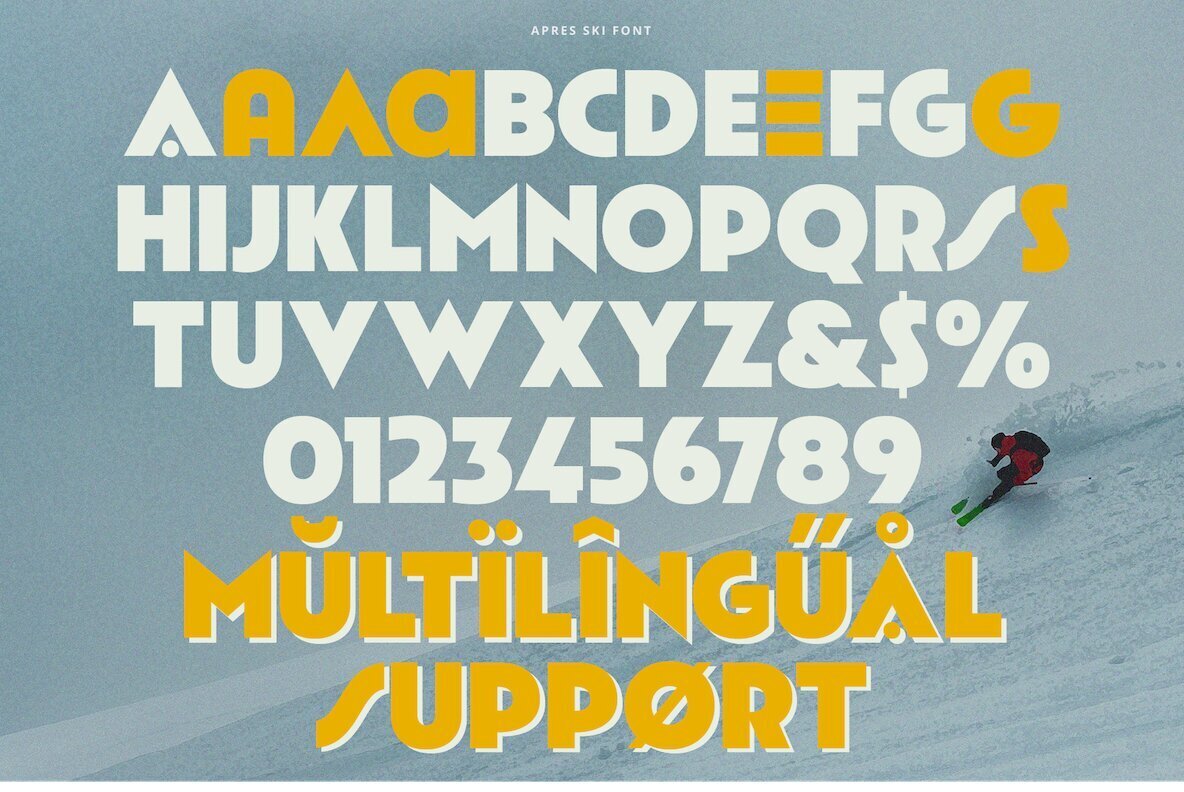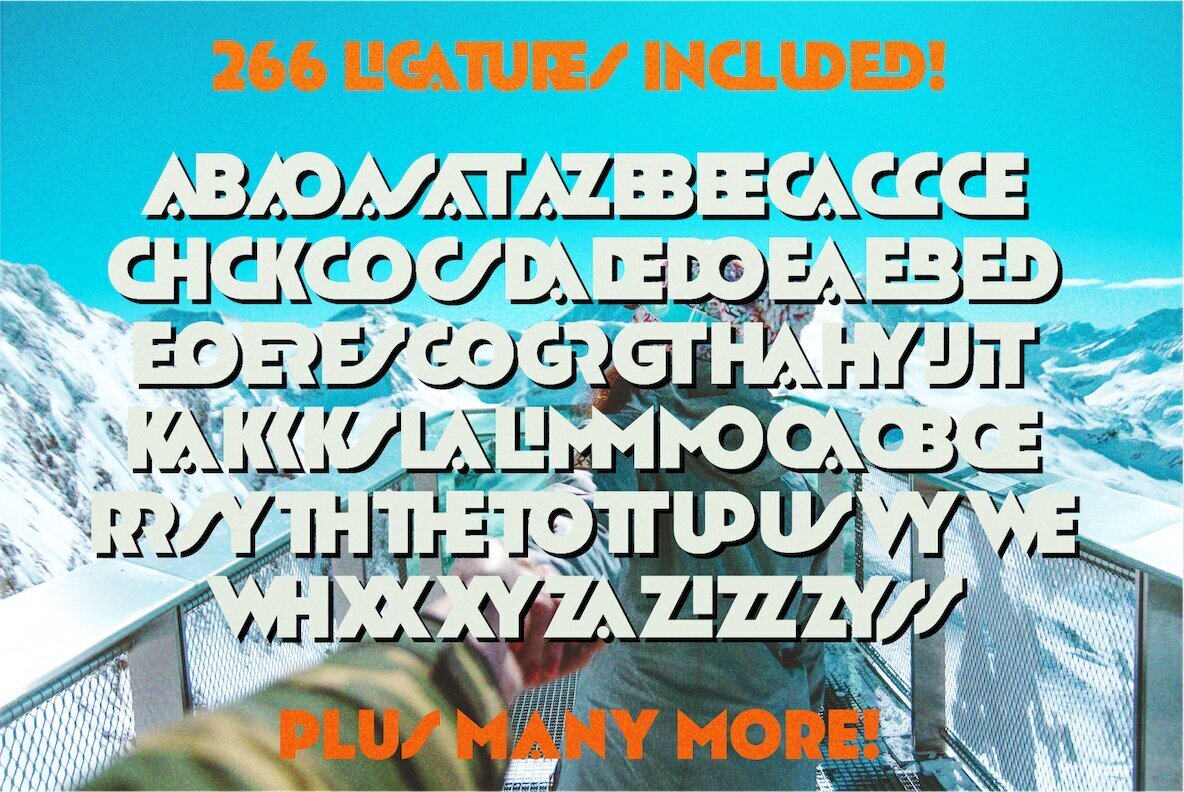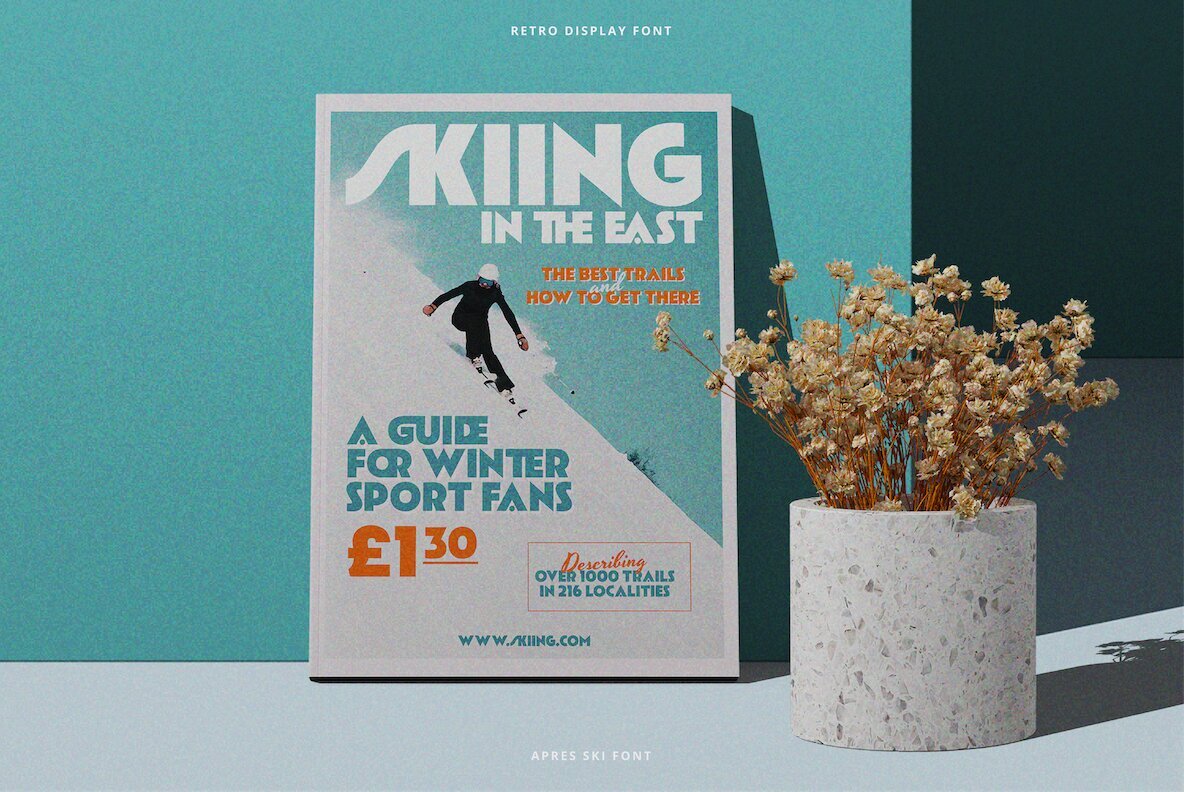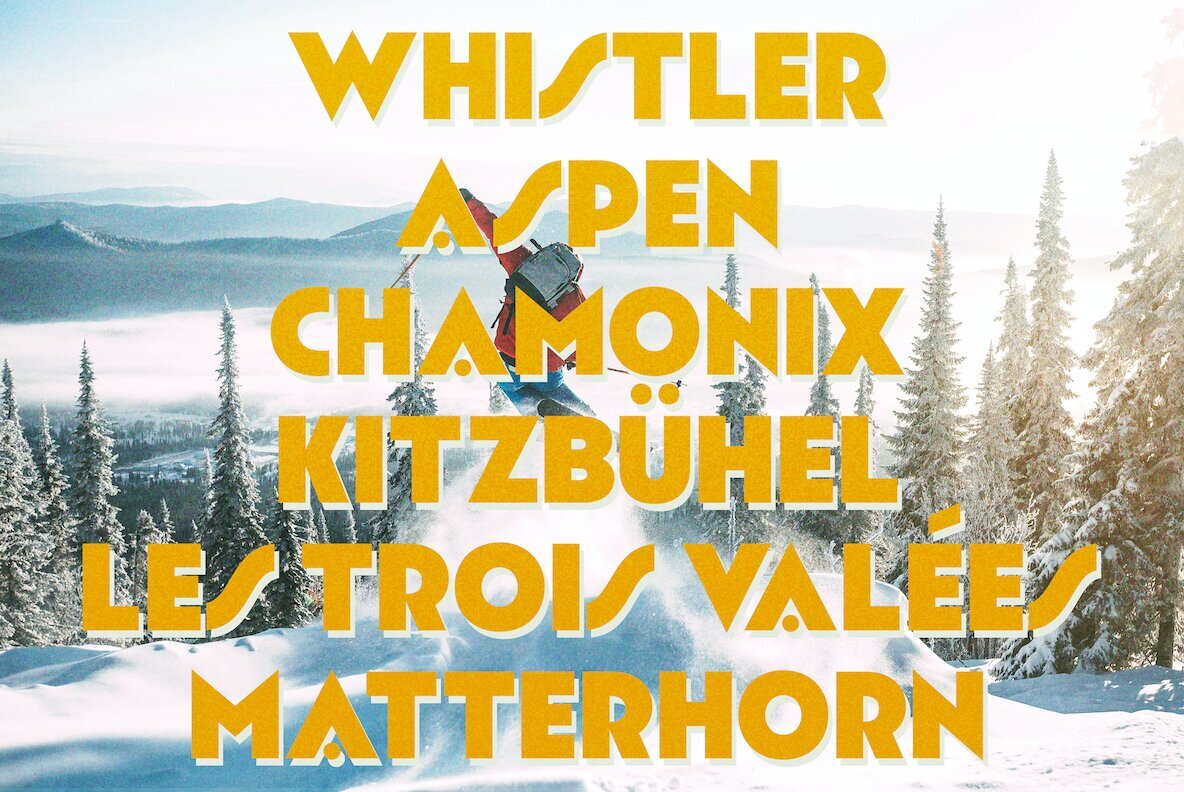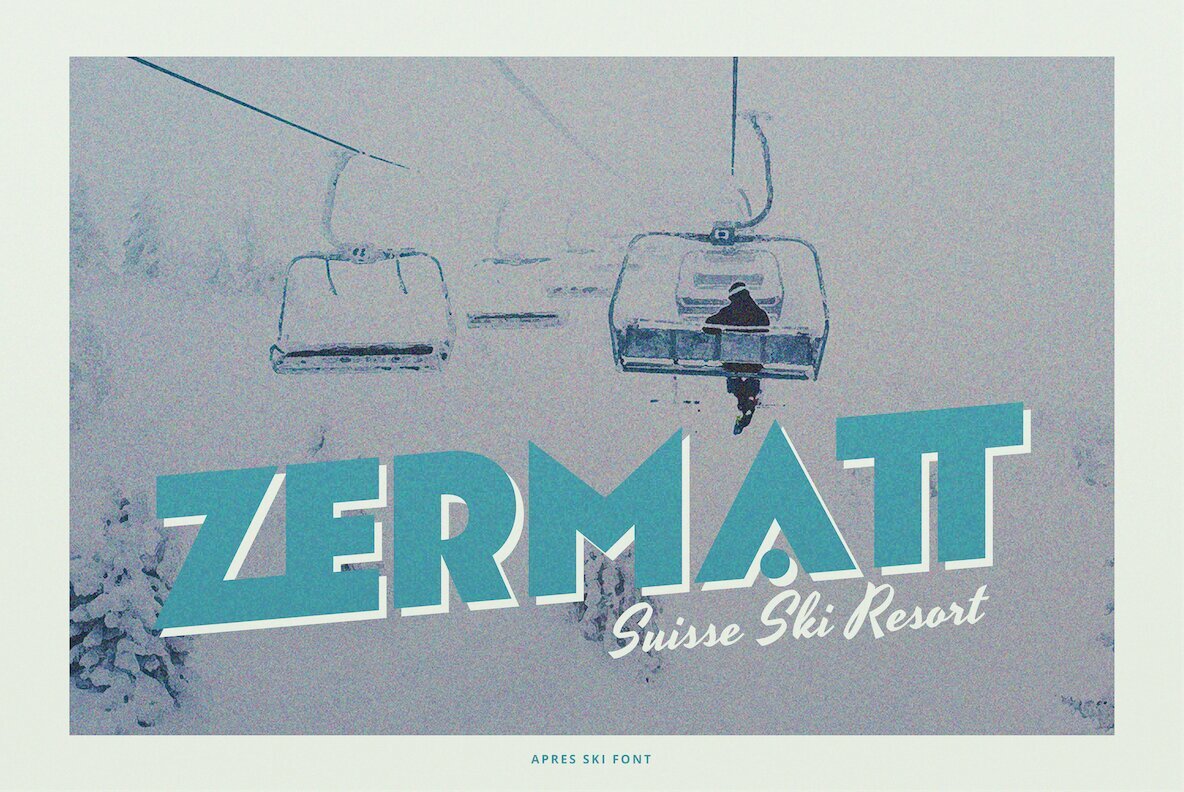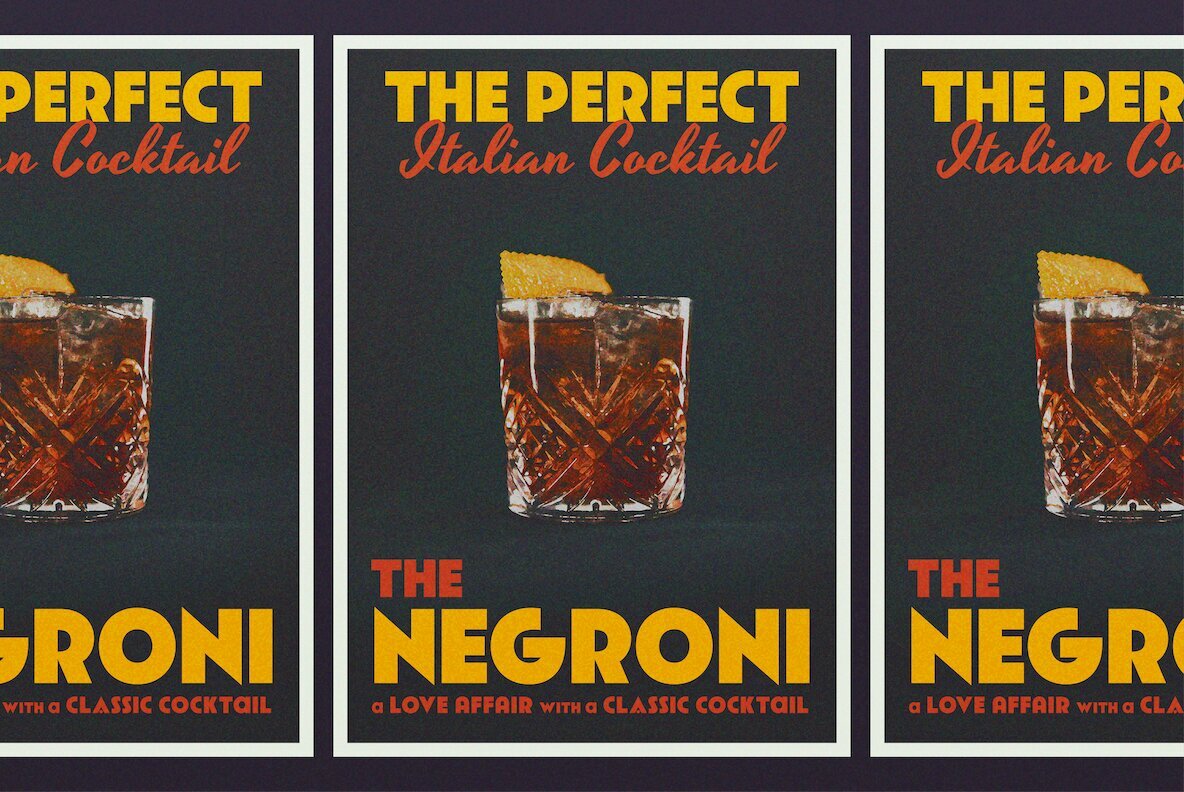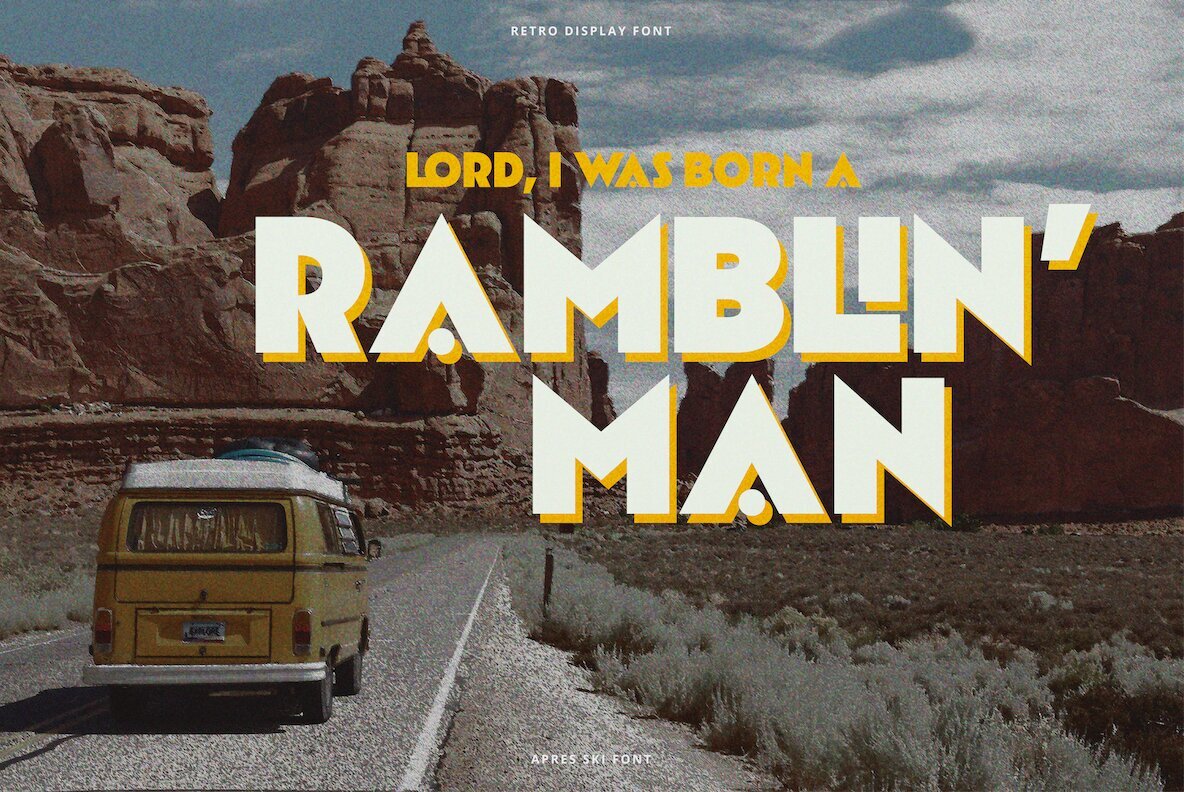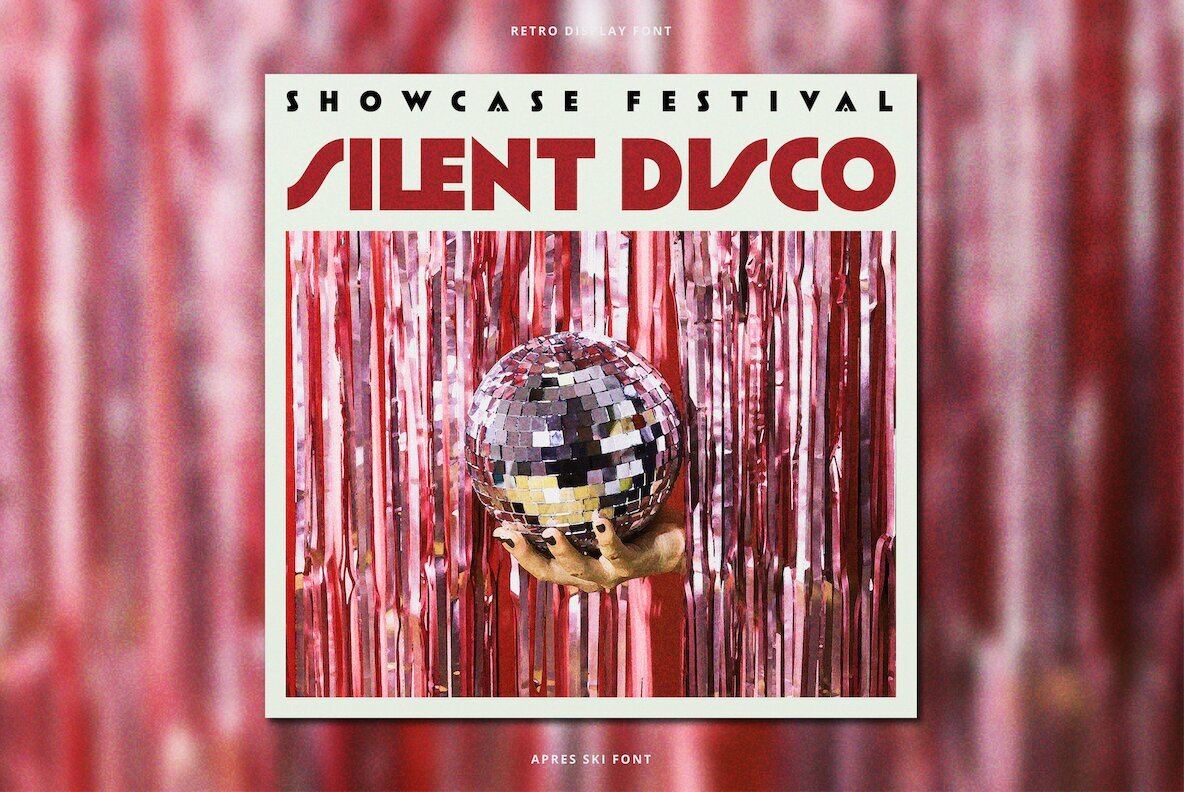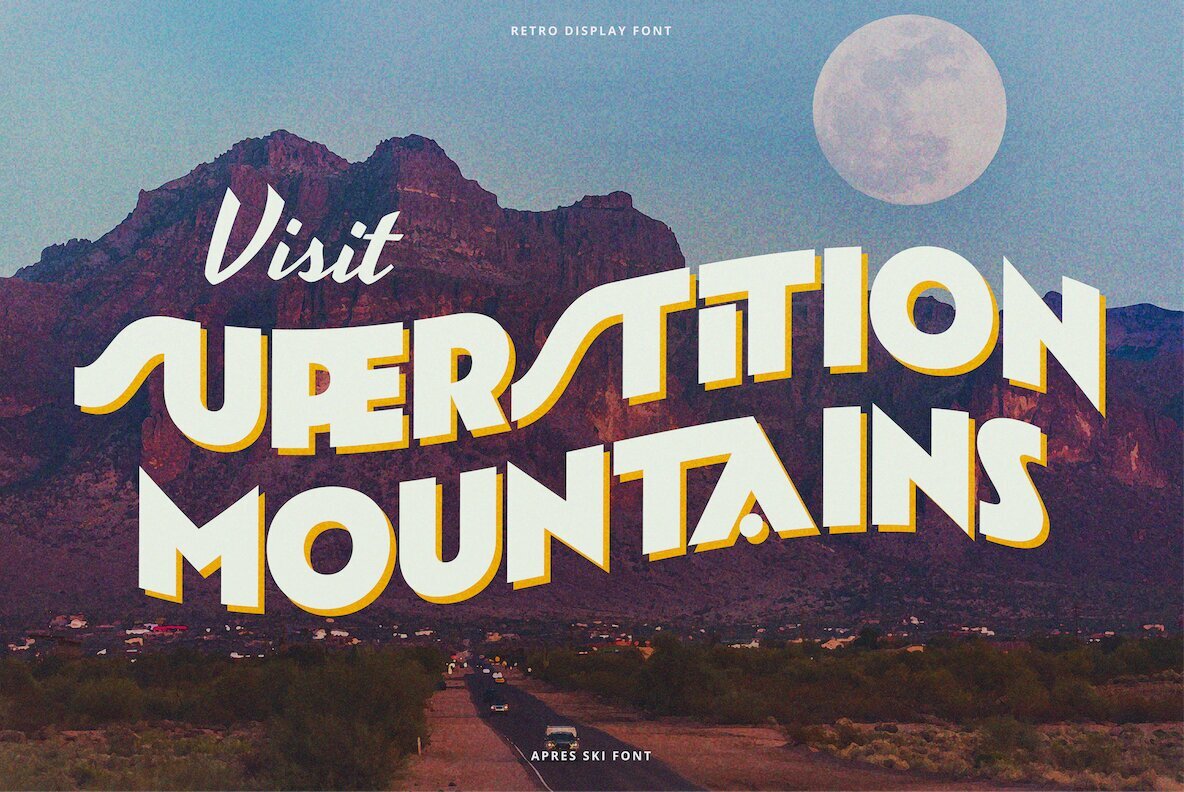
Apres Ski Font
Apres Ski Regular
Après Ski is a bold retro display font that will transport you back in time. This font is perfect for any project that needs a touch of vintage charm. With 266 ligatures, it's versatile enough to be used in a variety of design applications.
The strong, bold lines of Après Ski make it an ideal choice for headlines and other eye-catching designs. It's perfect for adding a retro twist to your branding, or for creating posters and other graphics that demand attention.
The 266 ligatures will ensure that your typography looks custom, allowing you to wow clients and make your work stand out.